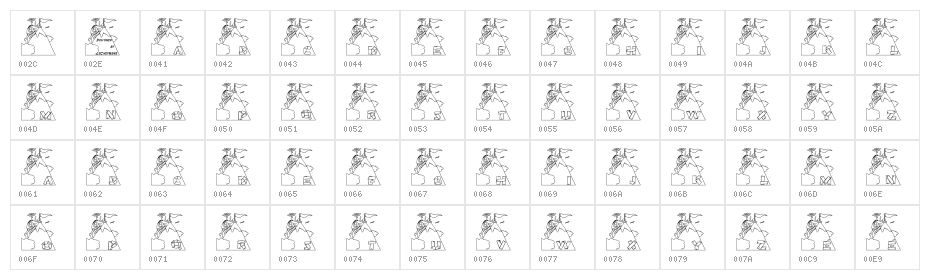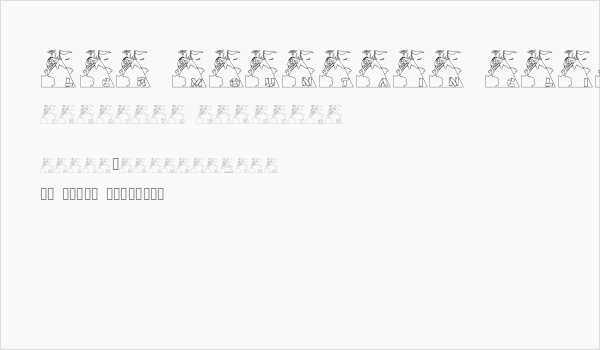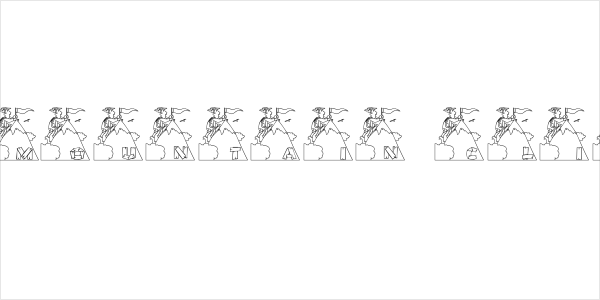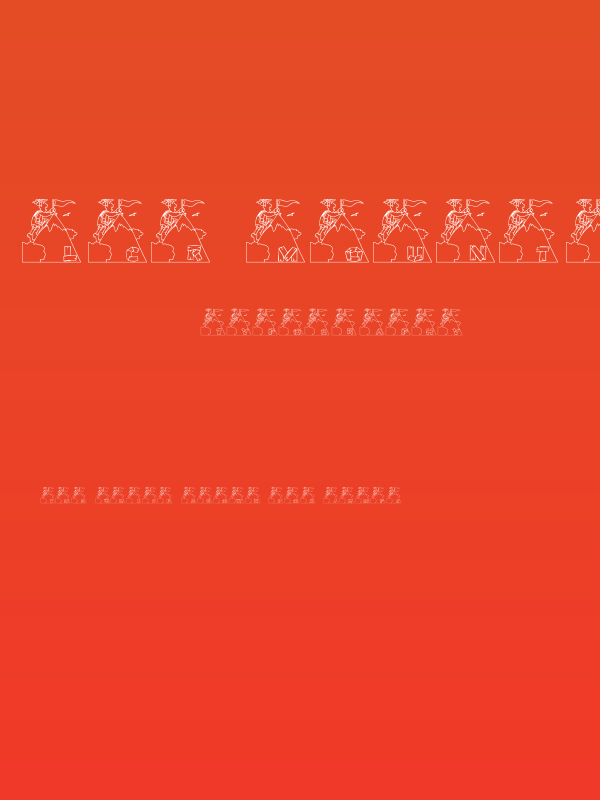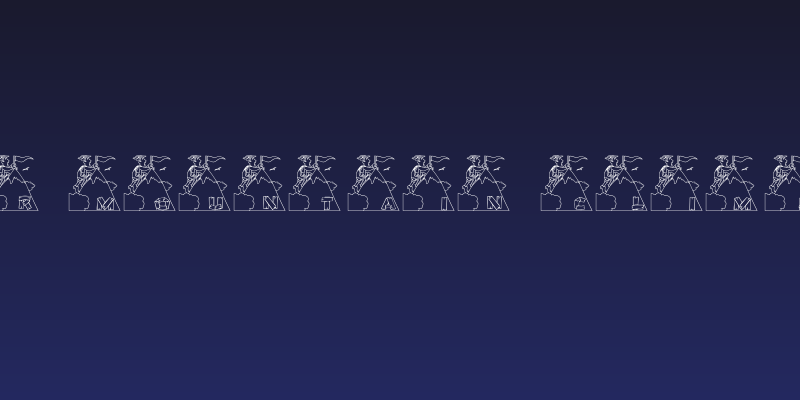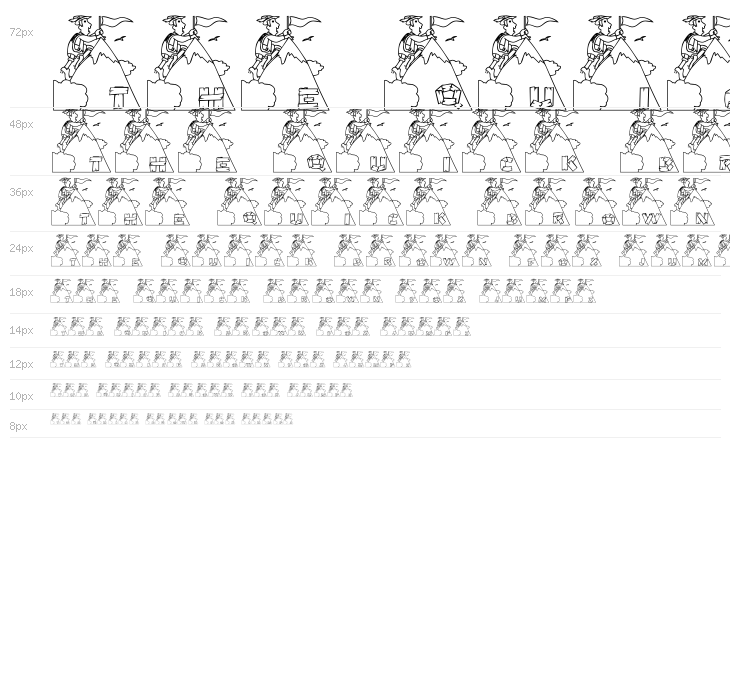
LCR Mountain Climber Font
LCR Mountain Climber Description
This is a decorative font featuring a unique mountain climber motif integrated into each character. The design is highly illustrative, with each letter being accompanied by a detailed drawing of a climber scaling a mountain. This artistic approach makes the font more of a visual statement than a traditional typeface. The characters are enclosed in rectangular frames, adding a structured element to the otherwise dynamic design. The font is not suitable for body text due to its intricate details but can be used effectively for thematic headlines or artistic projects where the visual impact is prioritized.
| Use Case | Headlines, Artistic projects, Thematic displays |
| Proposed Projects | Ideal for adventure-themed posters, outdoor event branding, or artistic projects that require a strong visual theme. |